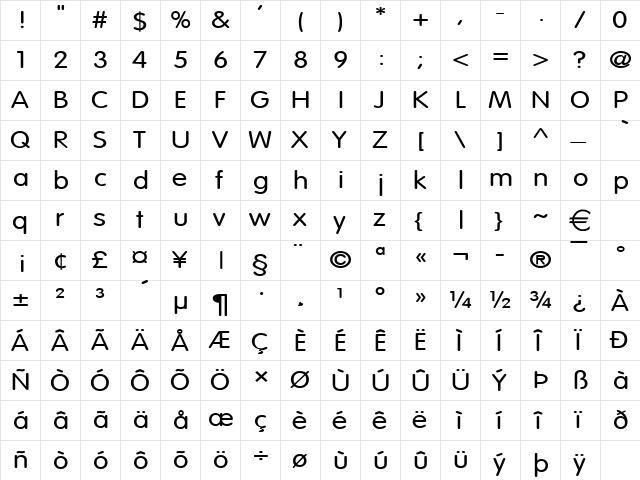
VogelWide Normal
Design Context for VogelWide Typeface
VogelWide is a composed and adaptable typeface that performs quietly and consistently across a wide range of design contexts.